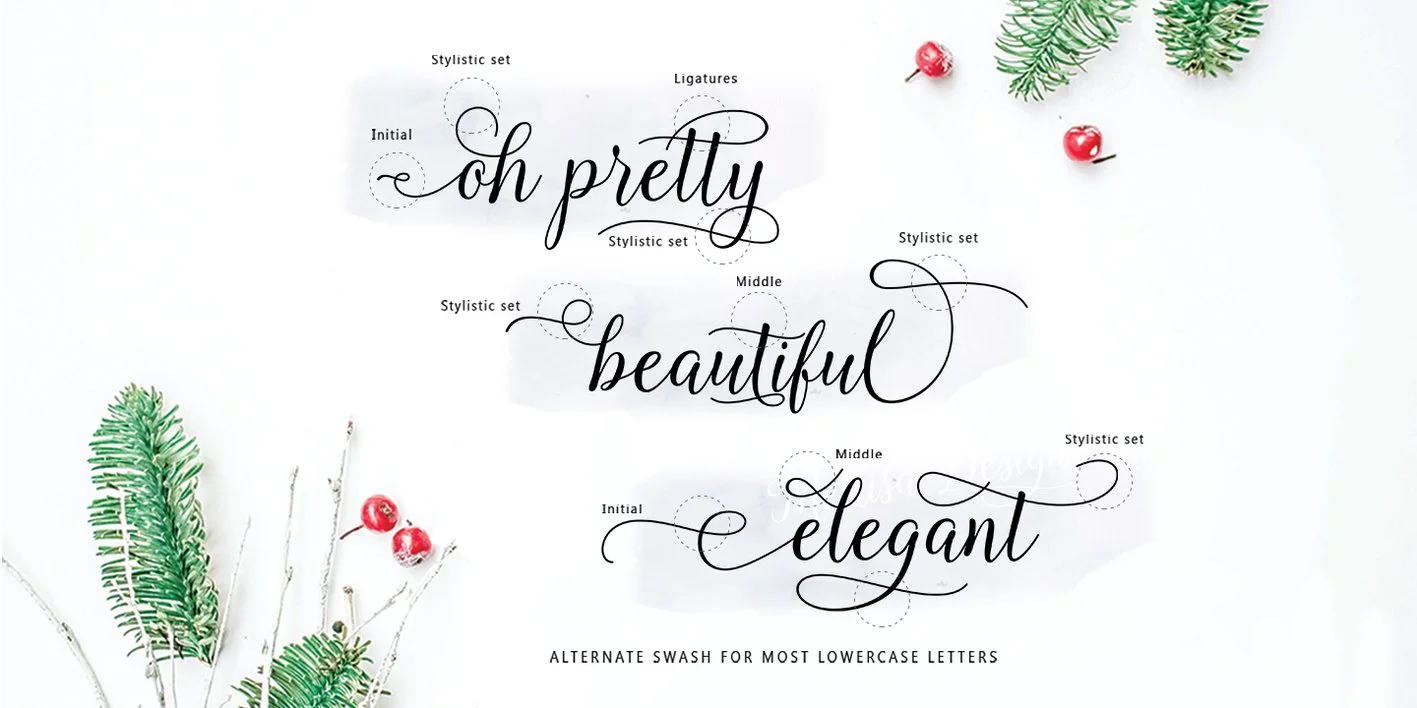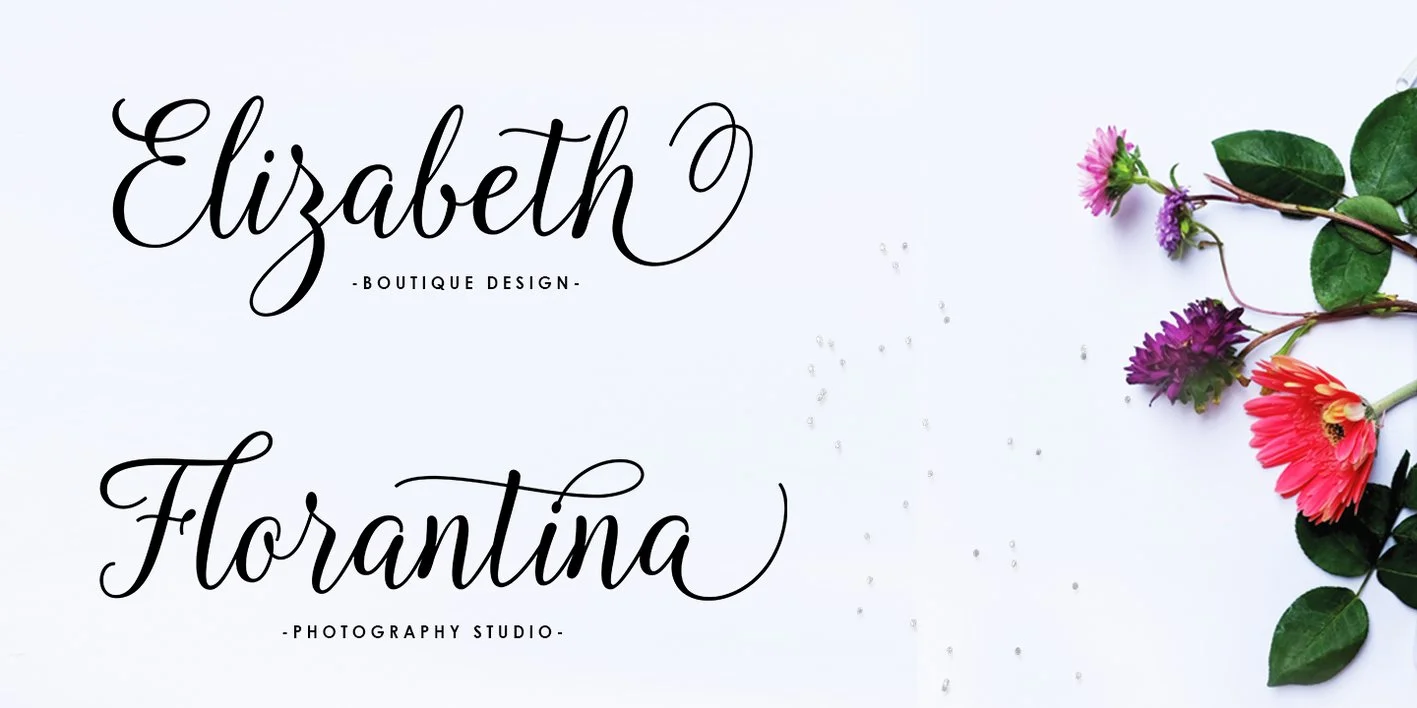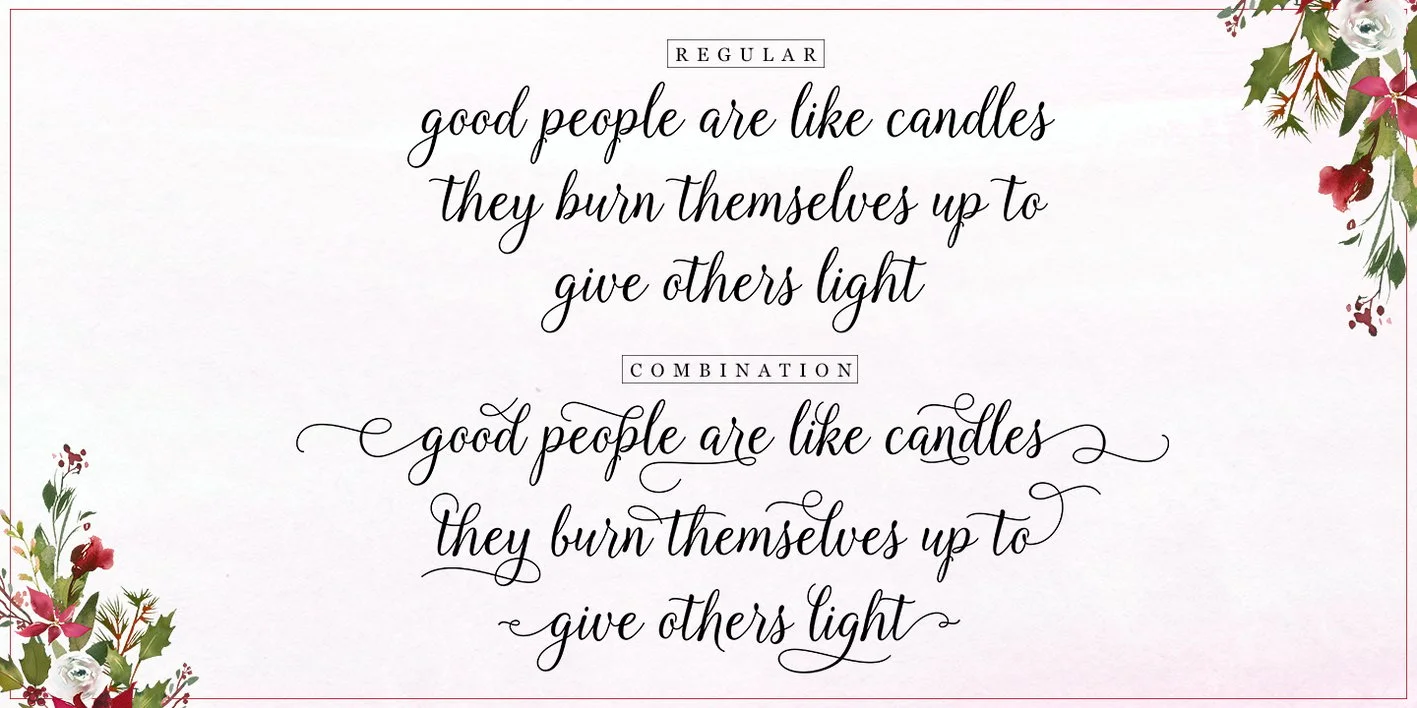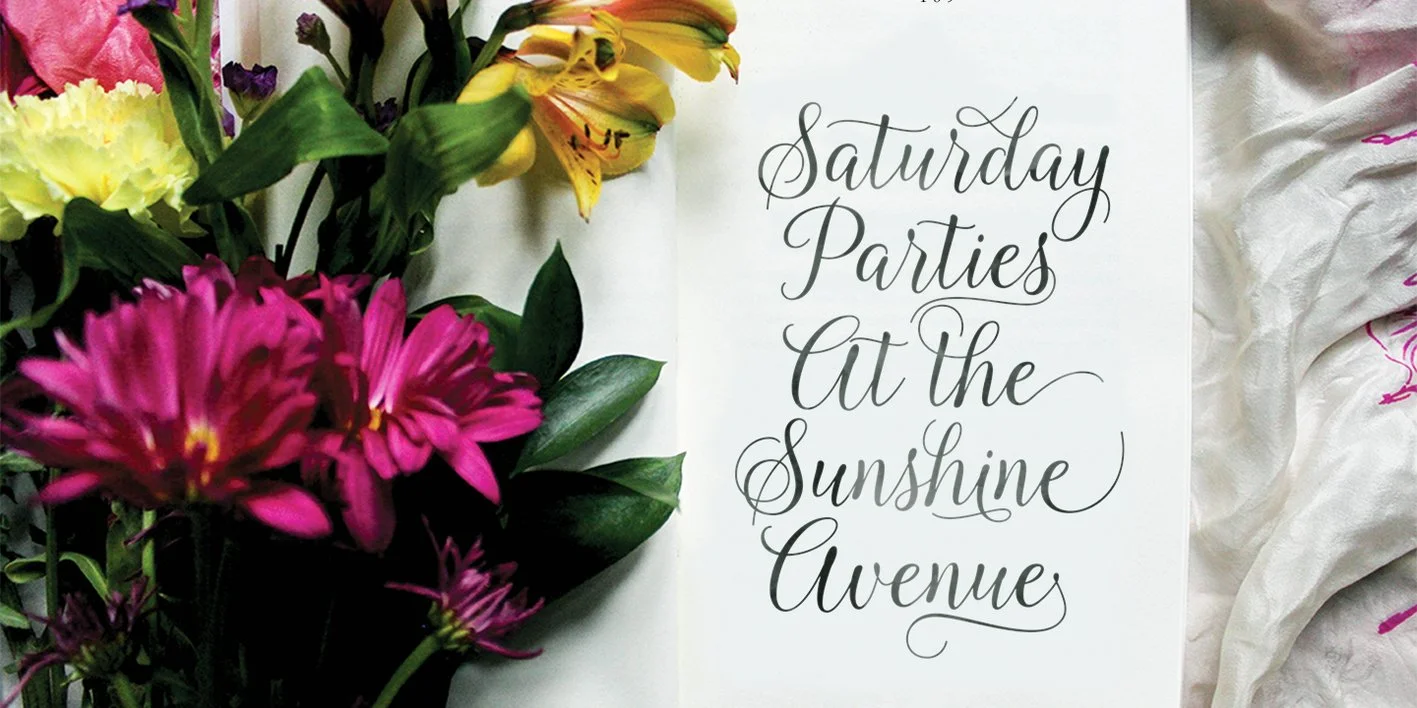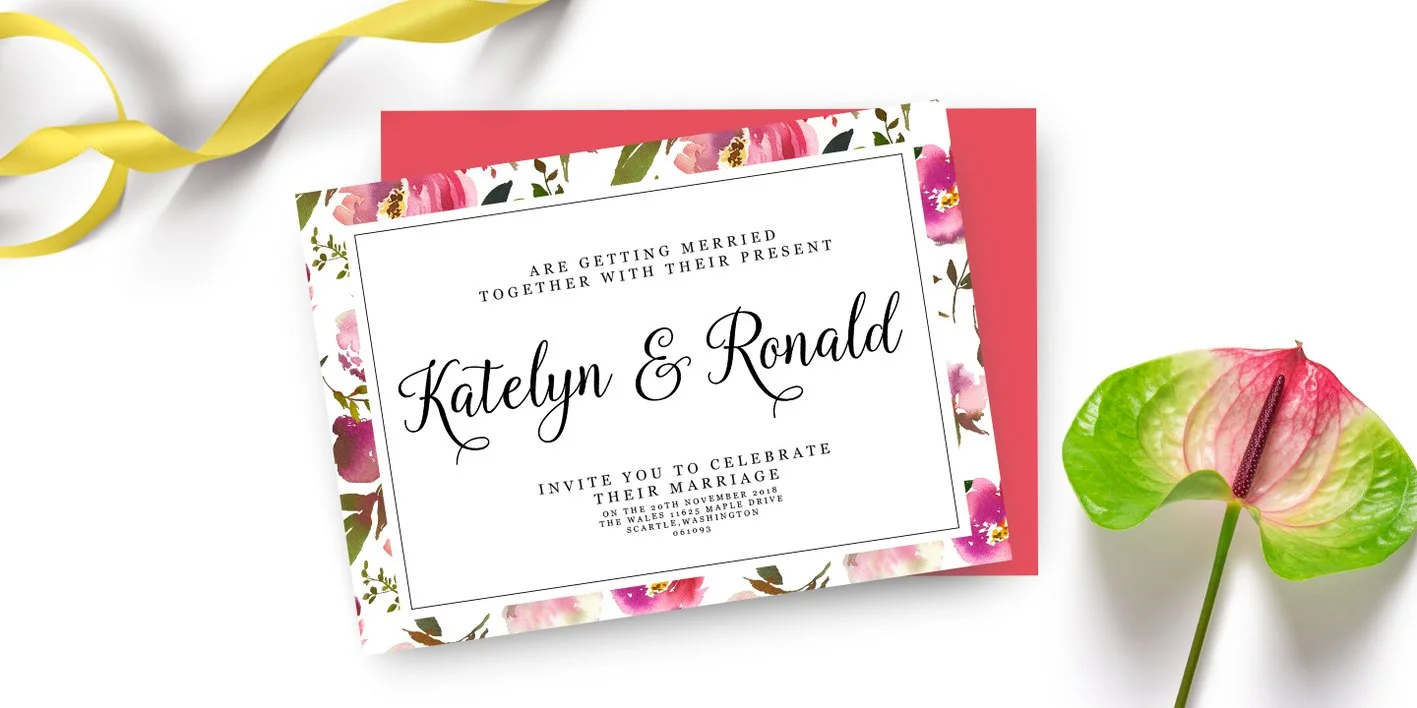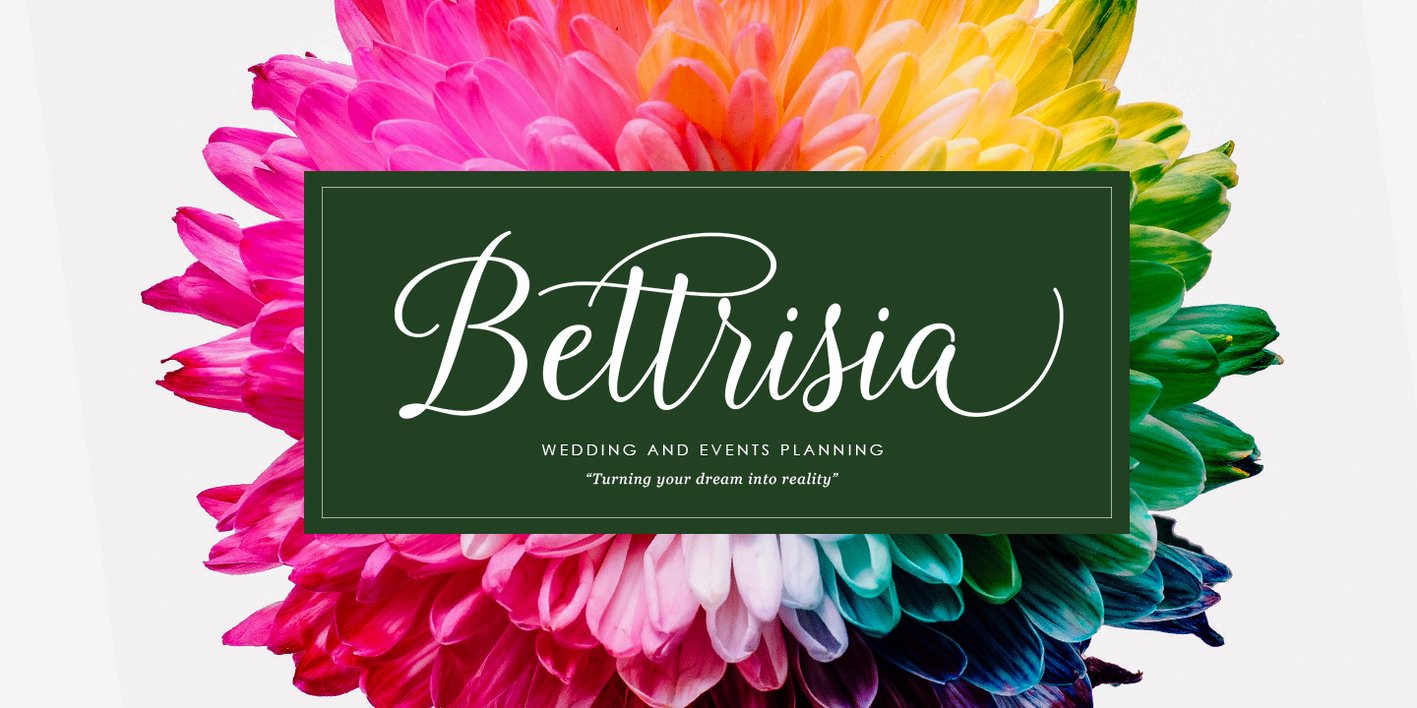
Kasandra Script Font
When a design brief calls for both the kind of restraint that lets content lead and immediate visual impact, type choices matter — Kasandra Script answers that brief. The typeface brings an elegant, calligraphic sensibility to a broad range of creative disciplines, with optical balance across all weights that holds up whether the work is print-first or screen-first.
In practice, Kasandra Script proves particularly effective for feminine branding, luxury stationery, web design, greeting cards, logo design. Designers reaching for it find that the type decisions feel resolved rather than laboured — a useful quality when client timelines are tight.
The range of applications extends to bridal materials, brand identity systems, fragrance labels, event signage. That breadth is deliberate: the proportions and spacing were stress-tested across a wide range of mock briefs before the typeface was finalised.
Brand strategists building visual languages find Kasandra Script a reliable choice for projects that demand both personality and restraint. The design avoids the self-conscious quirkiness that dates quickly, settling instead for considered distinctiveness that holds up over time.